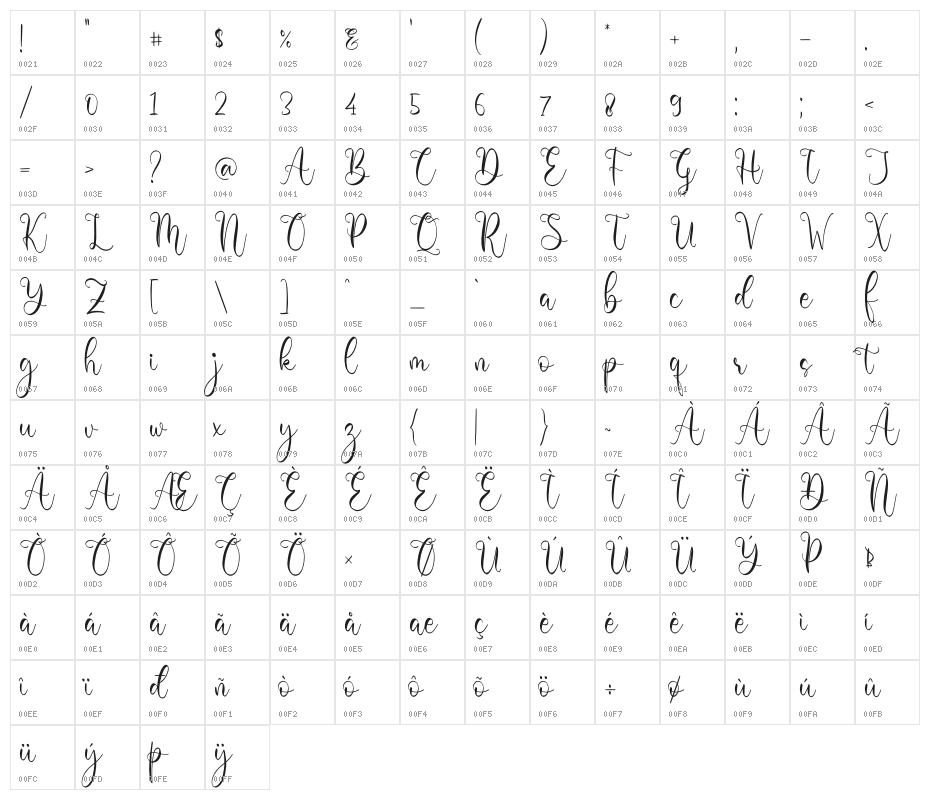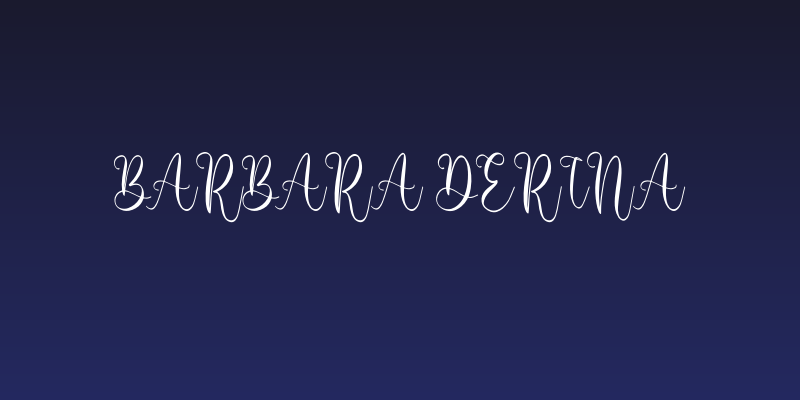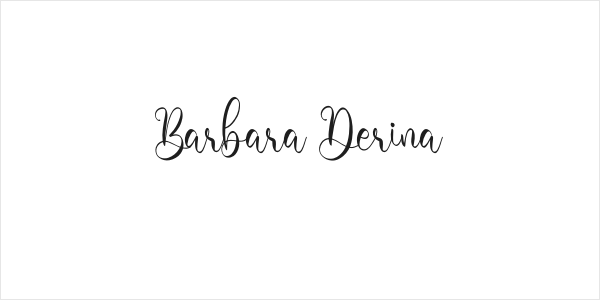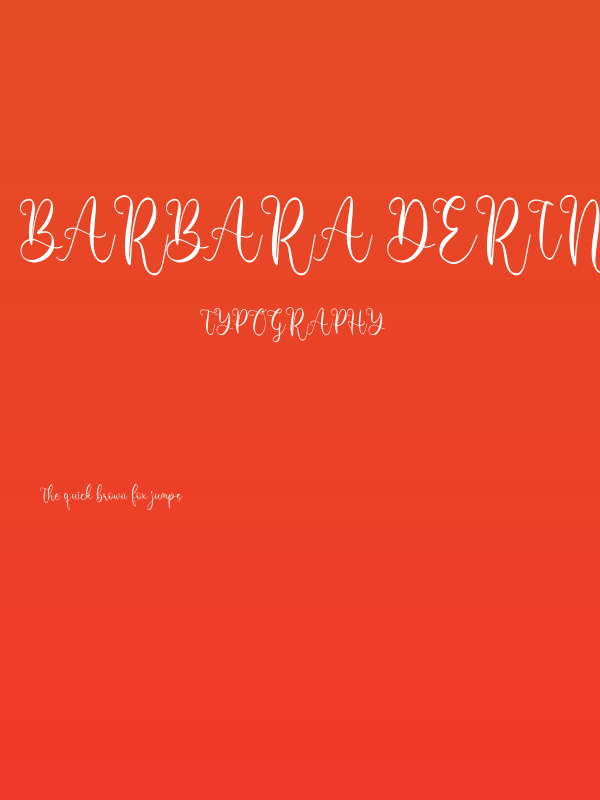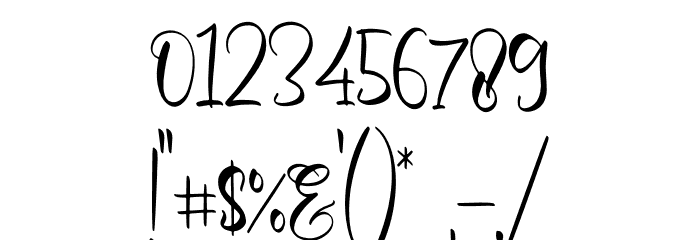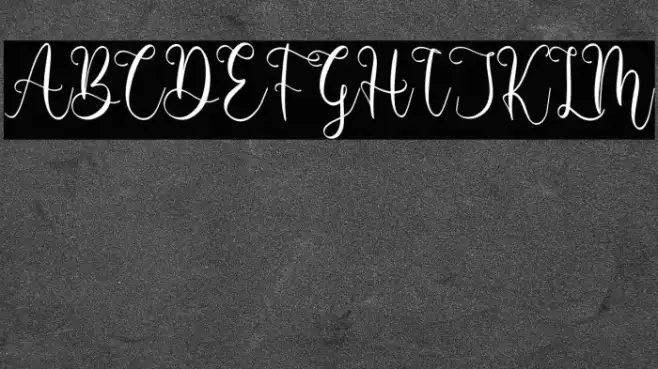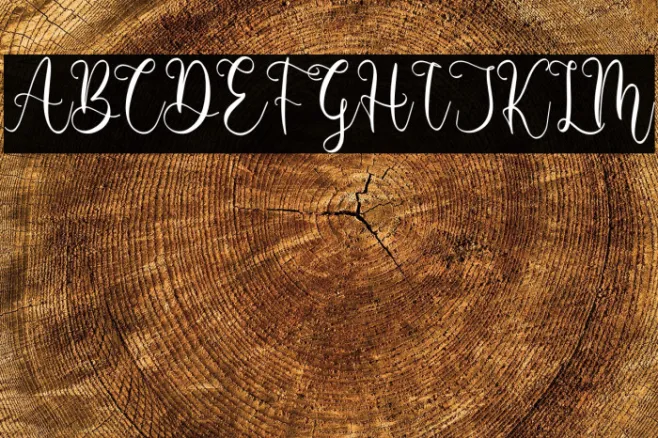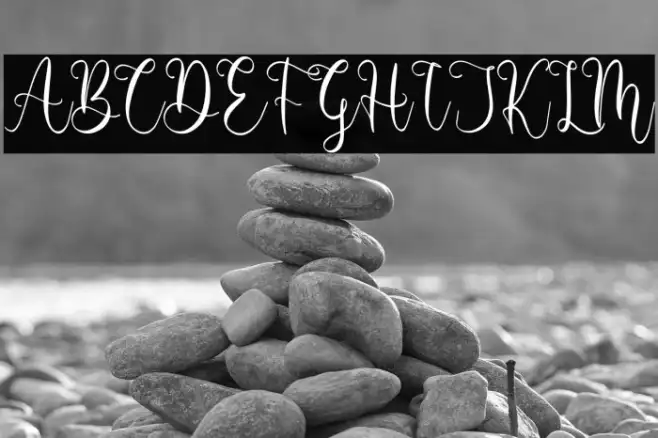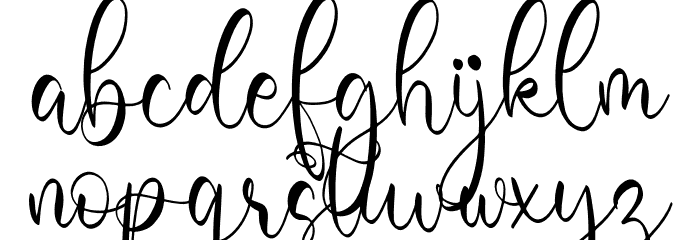
Barbara Derina Font
Barbara Derina Description
This font features an elegant and flowing script style, characterized by its cursive, hand-drawn appearance. The uppercase letters are tall and graceful, with intricate loops and swirls that add a touch of sophistication. The lowercase letters maintain a consistent flow, with some characters extending below the baseline, enhancing the font's fluidity. Numbers and special characters are designed to match the overall aesthetic, providing a cohesive look. The font's artistic flair makes it suitable for creative and decorative applications.
| Proposed Projects | Ideal for wedding invitations, greeting cards, branding, and elegant signage. |